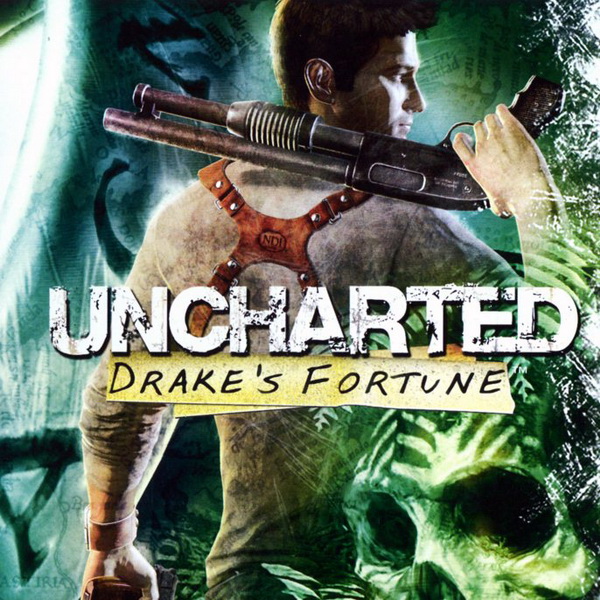
Uncharted Font
ActionUncharted is an action-adventure video game franchise published by Sony Interactive Entertainment and developed by Naughty Dog. The Uncharted series follows treasure hunter Nathan Drake as he travels across the globe in search of historical mysteries.
A grunge-look logotype is used in the Unchartered video game series. The lettering is very similar to a font called Base 02 designed by StereoType. The font is available in uppercase letters and numbers only.